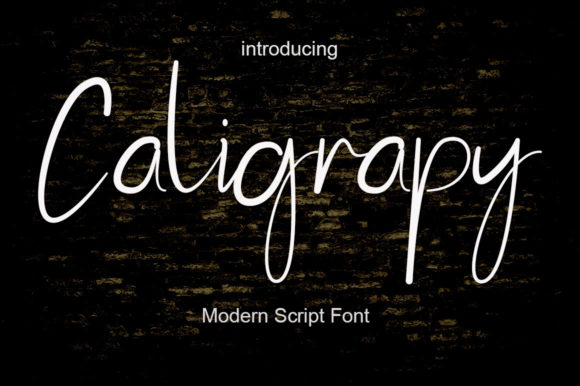
The Caligrapy Font: A Designer’s New Best Friend
I still remember the last time I was working on a wedding invitation project, and I just couldn’t find the right font to make it feel special. My client wanted something elegant, yet playful; something that would set the tone for a beautiful celebration. That’s when I stumbled upon Caligrapy, a free-flowing script font that instantly caught my eye. In this article, I’ll share my experience with Caligrapy, its features, and how to make the most of it in your designs.
An Honest Review of Caligrapy
What I Love About Caligrapy ✨
- 💫 Elegant and fluid strokes that give it a luxurious feel
- ✅ Highly versatile and suitable for various design projects, from wedding invitations to event posters
- 🎉 Beautifully crafted to add a customized touch to any design
- 🌈 Perfect for designers, crafters, and creative hobbyists looking for a high-quality script font
While Caligrapy is an excellent font, there are a few things to keep in mind:
- 🤔 It may not be the best choice for body text due to its script nature; it’s better suited for headings and titles
The Story Behind Caligrapy
While the origins of Caligrapy are unclear, it’s likely that the font was designed with the intention of creating a beautiful, flowing script that could be used in a variety of design applications. The designer may have been inspired by traditional calligraphy techniques, aiming to create a digital font that would evoke a sense of luxury and sophistication.
Q: What is Caligrapy, and what can I use it for?
A: Caligrapy is a free-flowing script font suitable for various design projects, including wedding invitations, event posters, thank you cards, and more.